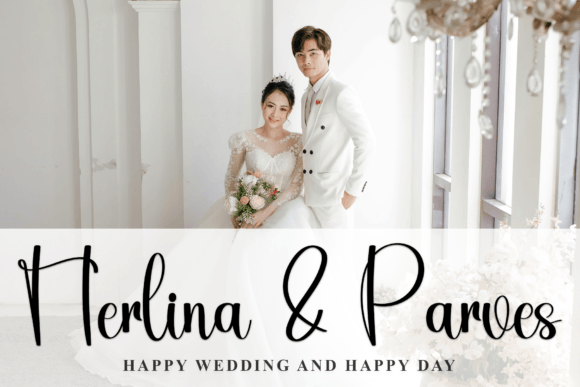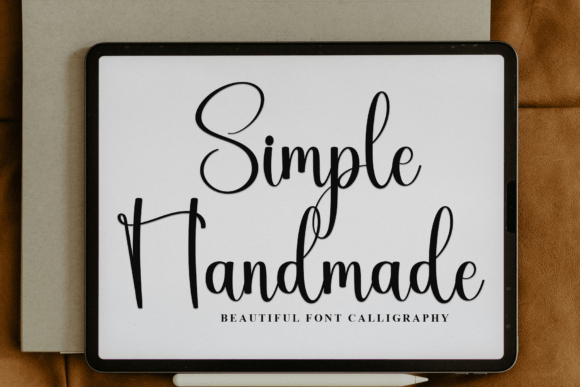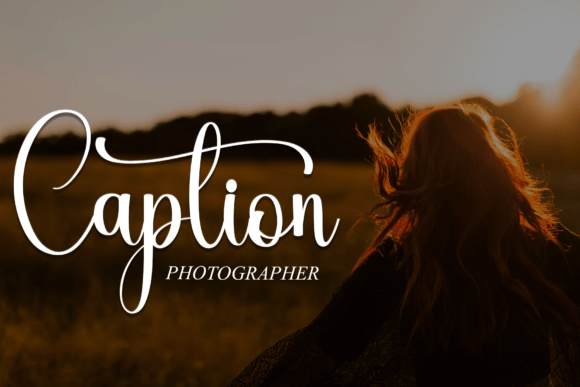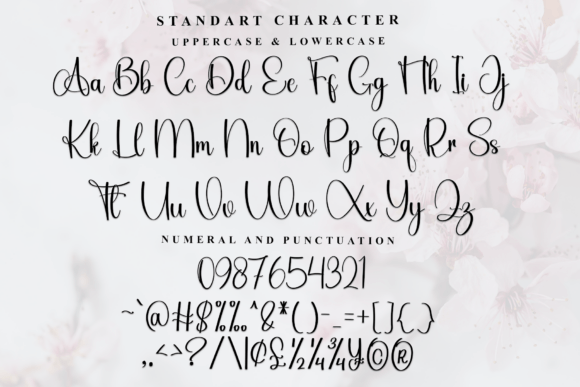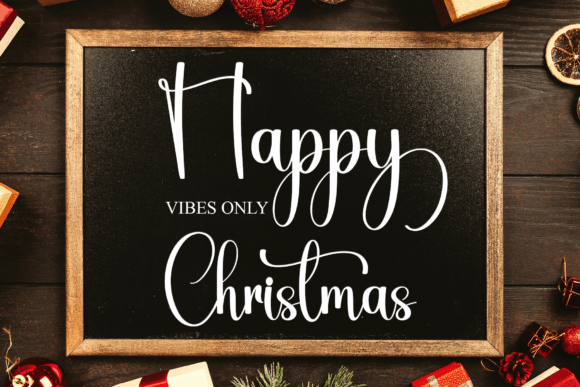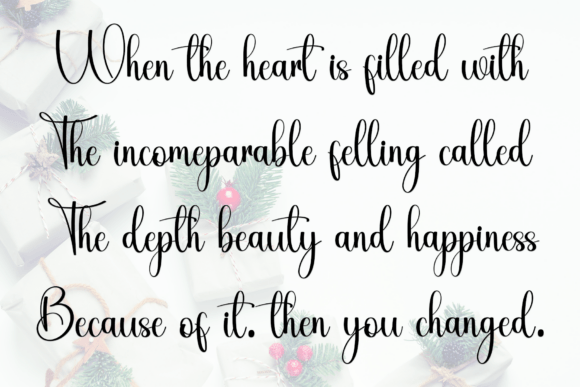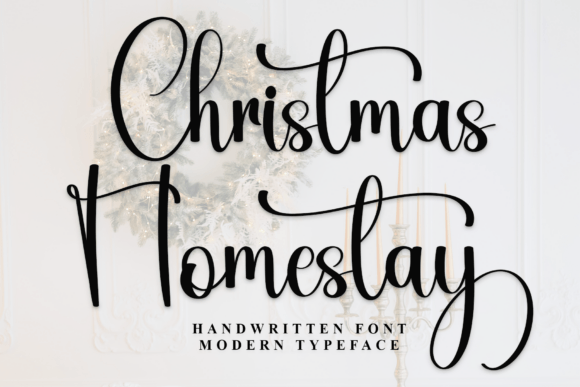
Introducing Christmas Homestay Font: The Perfect Blend of Elegance and Modernity
Are you on the hunt for a font that exudes sophistication, elegance, and a touch of modern flair? Look no further than Christmas Homestay Font, a stunning handwritten typeface that is sure to capture your heart. Designed to be a true favorite among designers and crafters, this exquisite font seamlessly blends classic calligraphic influences with a fresh, contemporary feel.
The Story Behind Christmas Homestay Font
Christmas Homestay Font is more than just a beautiful font – it’s a masterpiece crafted with precision and passion. Its creator aimed to design a typeface that not only pays homage to traditional calligraphy but also meets the demands of modern design. The result is a font that feels both timeless and trendy, perfect for a wide range of creative projects.
Key Features of Christmas Homestay Font
- Handwritten Elegance: Christmas Homestay Font boasts a beautiful, handwritten aesthetic that adds a personal touch to any design.
- Classy Calligraphic Influences: The font’s classic calligraphic roots give it a sophisticated and elegant feel, making it ideal for high-end projects.
- Contemporary and Fresh: Despite its traditional influences, Christmas Homestay Font feels modern and fresh, ensuring your designs stay current and on-trend.
- Versatility: This font is incredibly versatile, suitable for a wide range of applications, from branding and advertising to packaging and digital media.
Why Designers and Crafters Love Christmas Homestay Font
So, what makes Christmas Homestay Font a favorite among designers and crafters? For starters, its unique blend of elegance and modernity makes it perfect for projects that require a touch of sophistication. Additionally, the font’s readability and flowing lines ensure that it works beautifully in both digital and print formats.
Whether you’re working on a festive holiday project, a luxury brand campaign, or a personal crafting endeavor, Christmas Homestay Font is the perfect choice. Its versatility and charm make it suitable for:
- Branding and logo design
- Digital media, such as social media graphics and blog headers
- Personal crafting projects, like handmade cards and gift tags
Tips for Using Christmas Homestay Font
To get the most out of Christmas Homestay Font, here are a few tips:
- Pair it with contrasting fonts: Combine Christmas Homestay Font with a clean, sans-serif font to create visual interest and hierarchy.
- Experiment with colors: The font’s elegant lines look stunning in a variety of colors, from rich jewel tones to metallic shades.
- Play with sizes: Use Christmas Homestay Font in a range of sizes to create emphasis and add visual flow to your designs.
In conclusion, Christmas Homestay Font is a true gem in the world of typography. Its exquisite blend of classic elegance and modern flair makes it a must-have for designers and crafters looking to elevate their projects. With its versatility, readability, and charm, this font is sure to become a favorite in your creative arsenal. So why wait? Fall in love with Christmas Homestay Font and bring your projects to the highest levels!